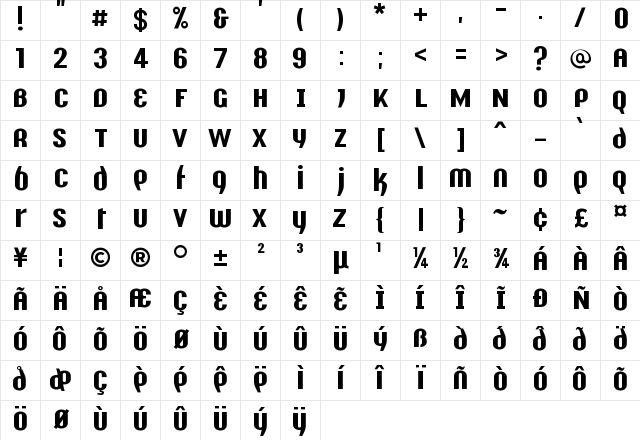
Y2K Analog Legacy Regular
Design Context for Y2K Analog Legacy
Y2K Analog Legacy is a composed and adaptable typeface that performs quietly and consistently across a wide range of design contexts.
Pro Tip: Use Y2K Analog Legacy in both headline and body roles to test its range before committing to a single application.